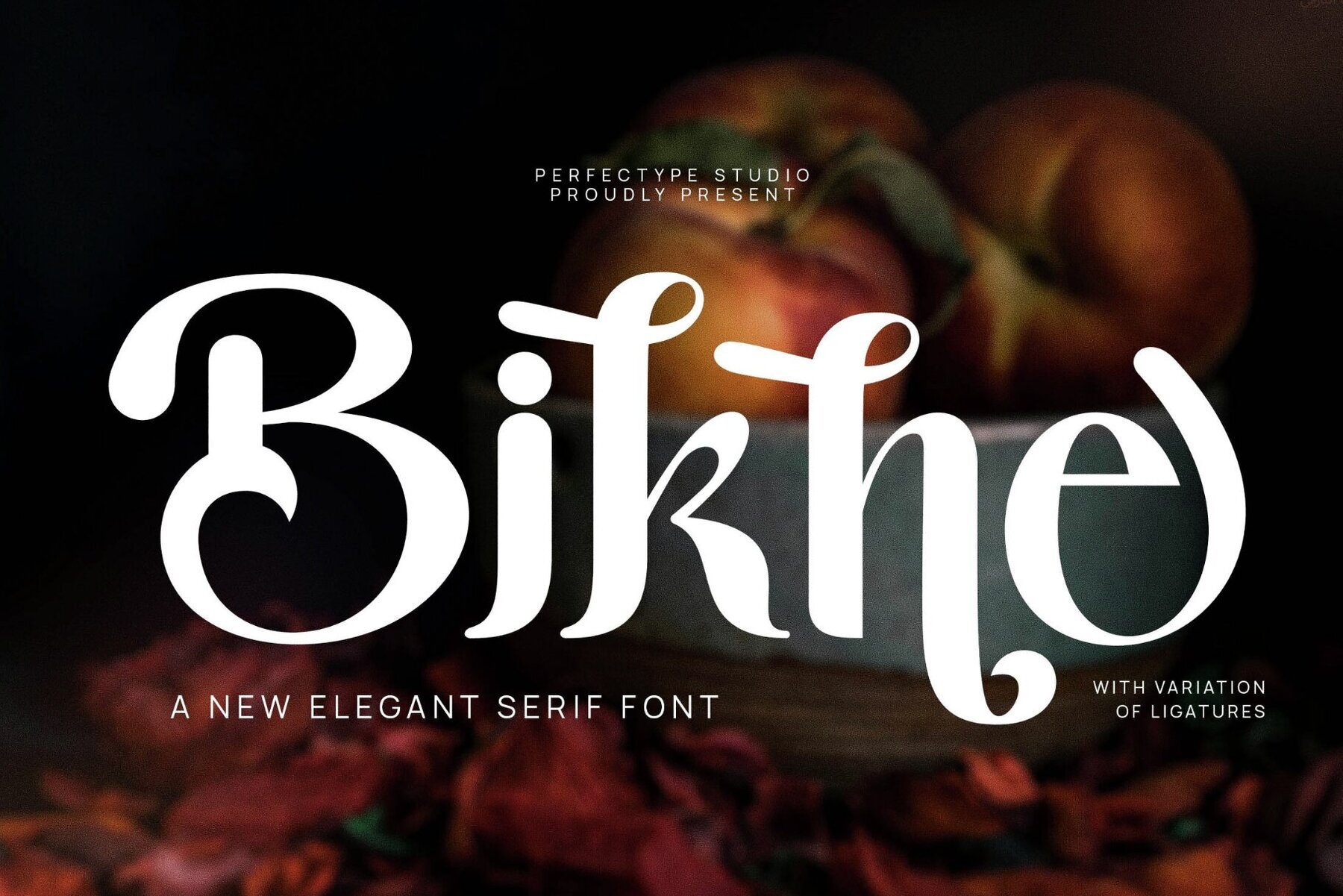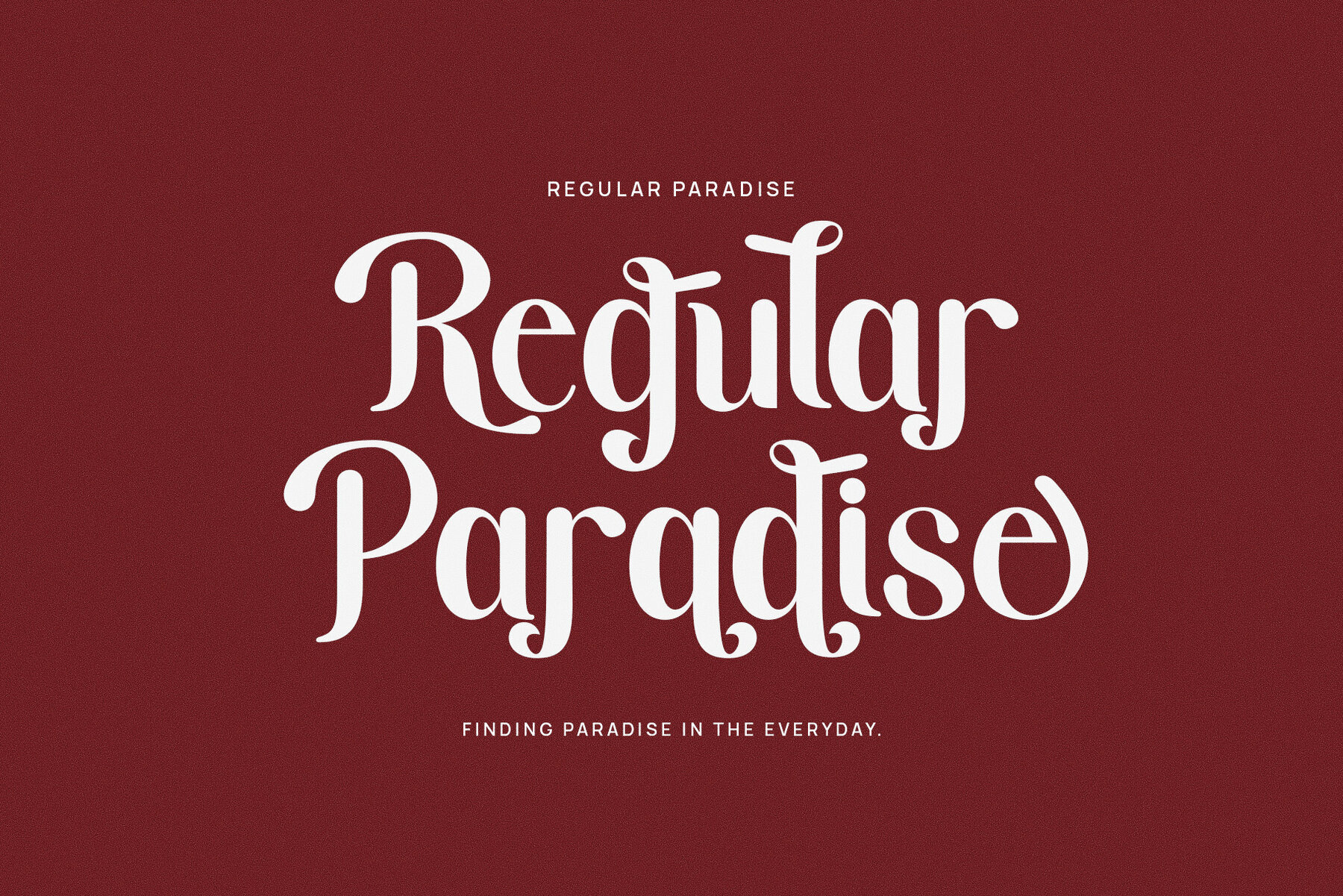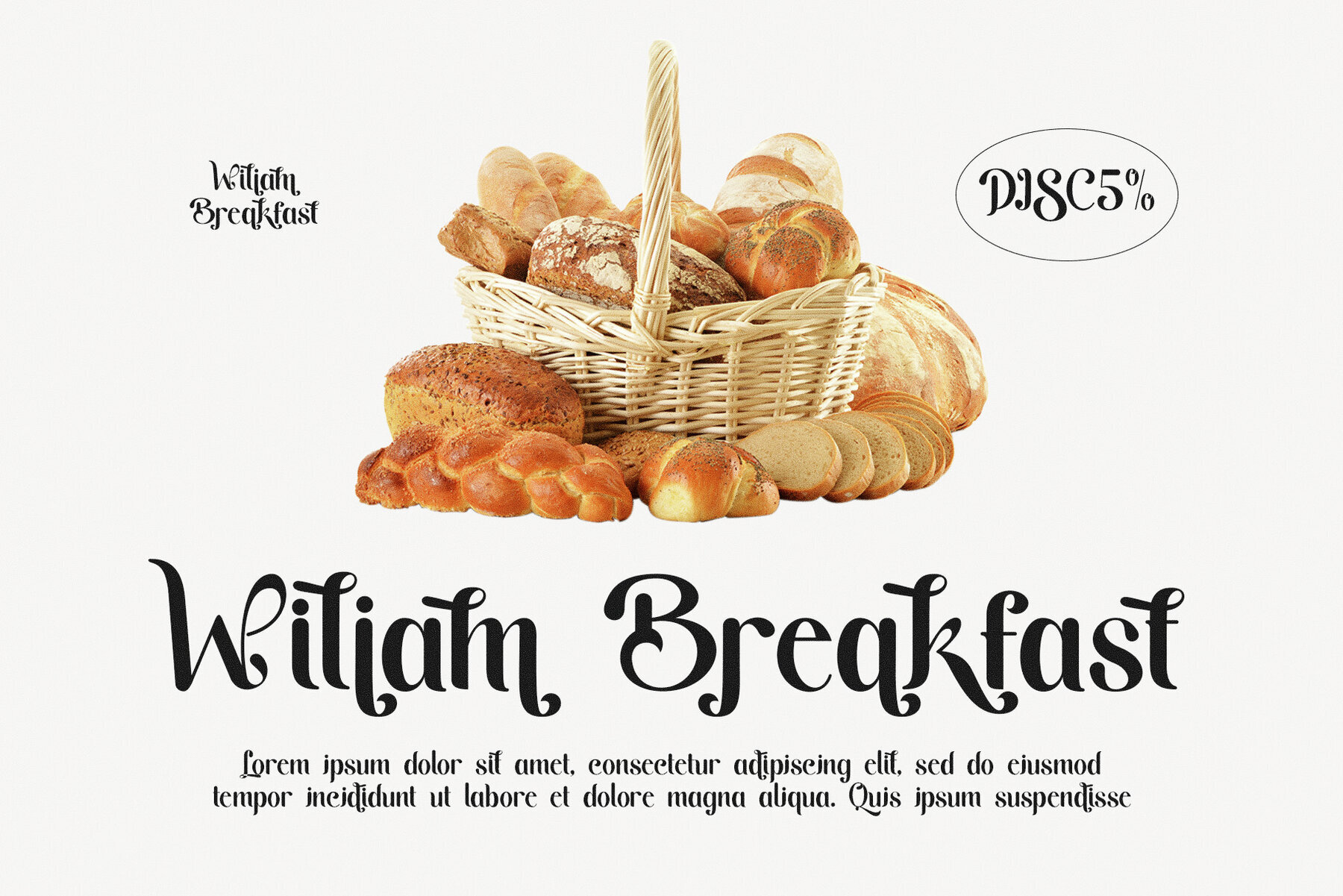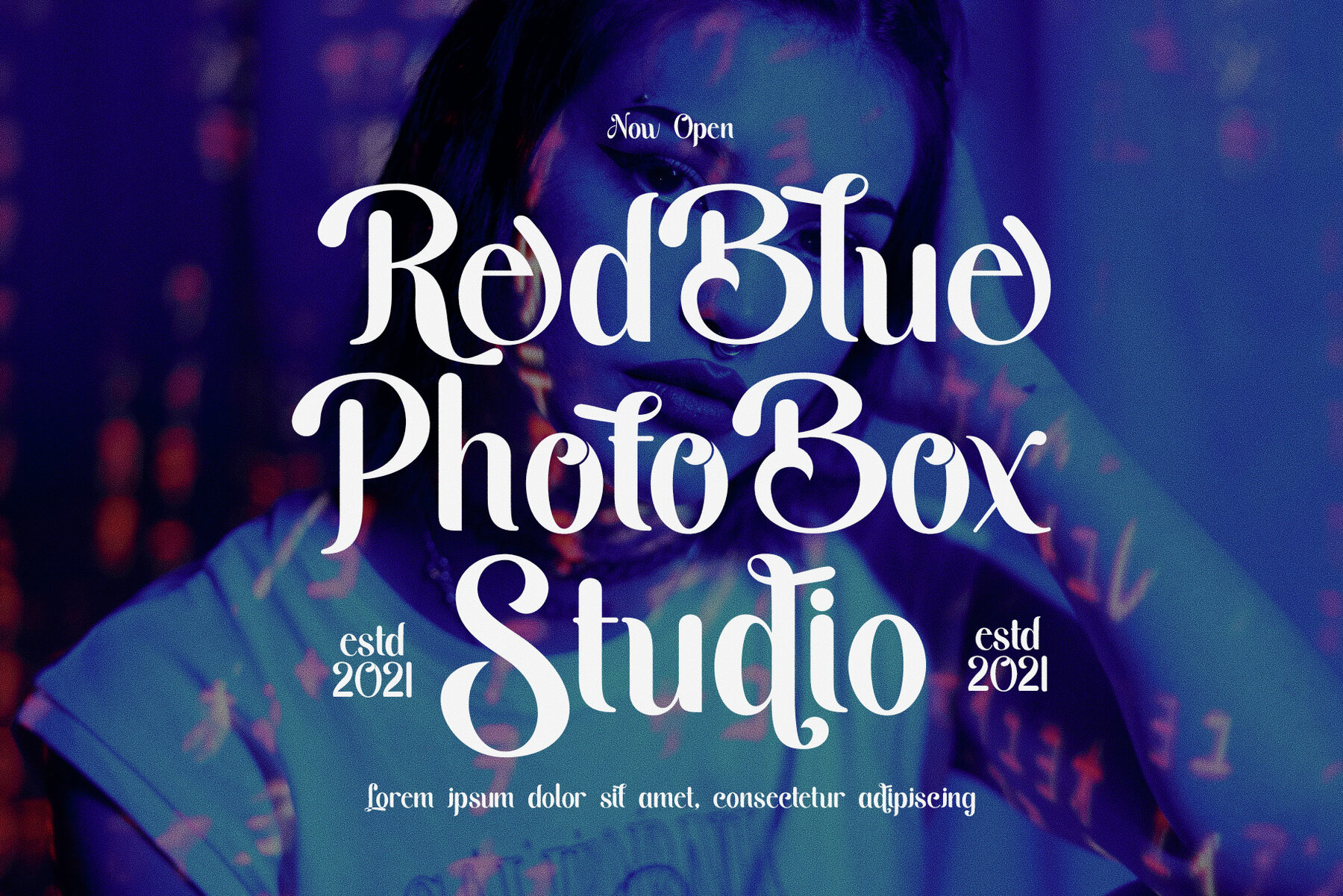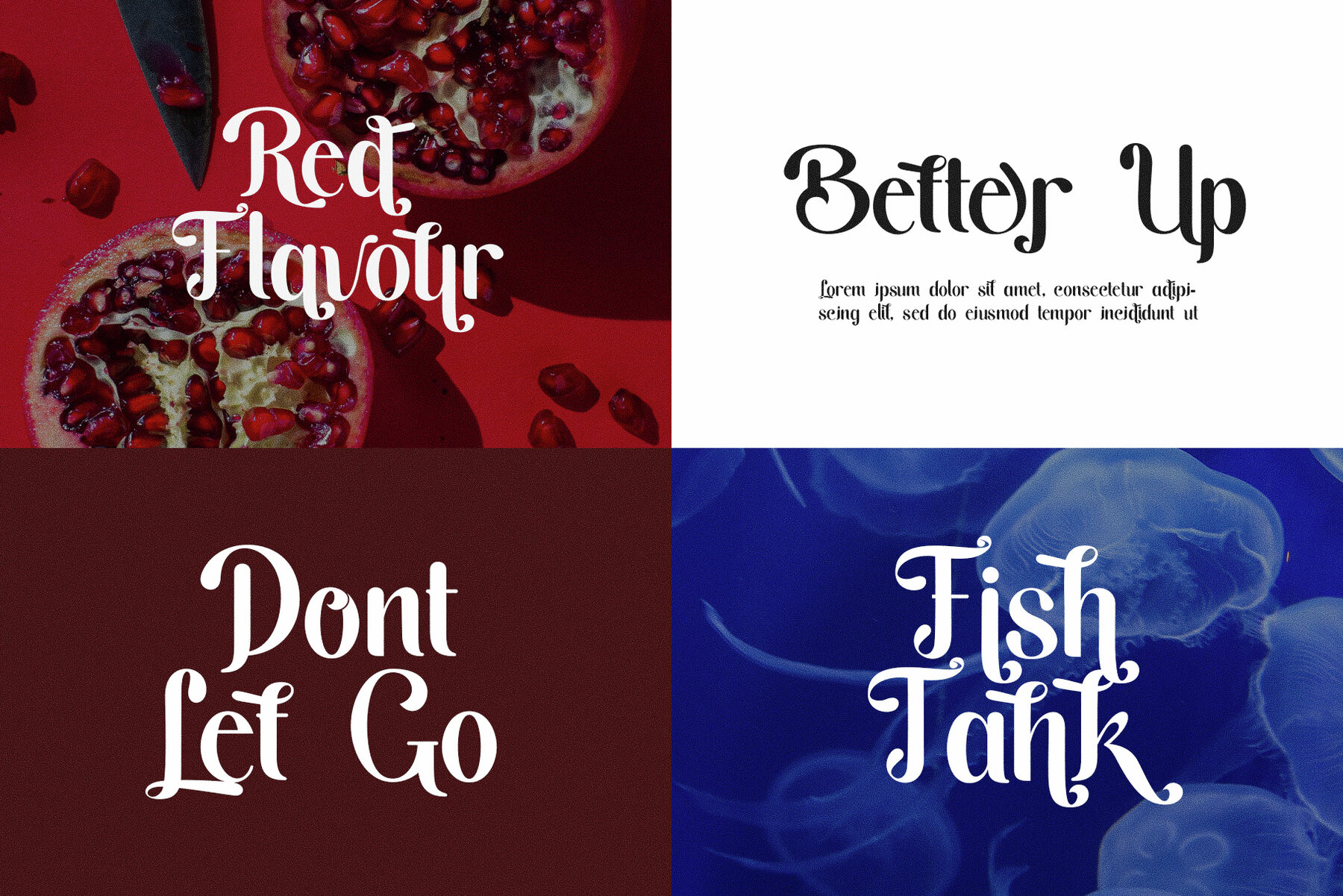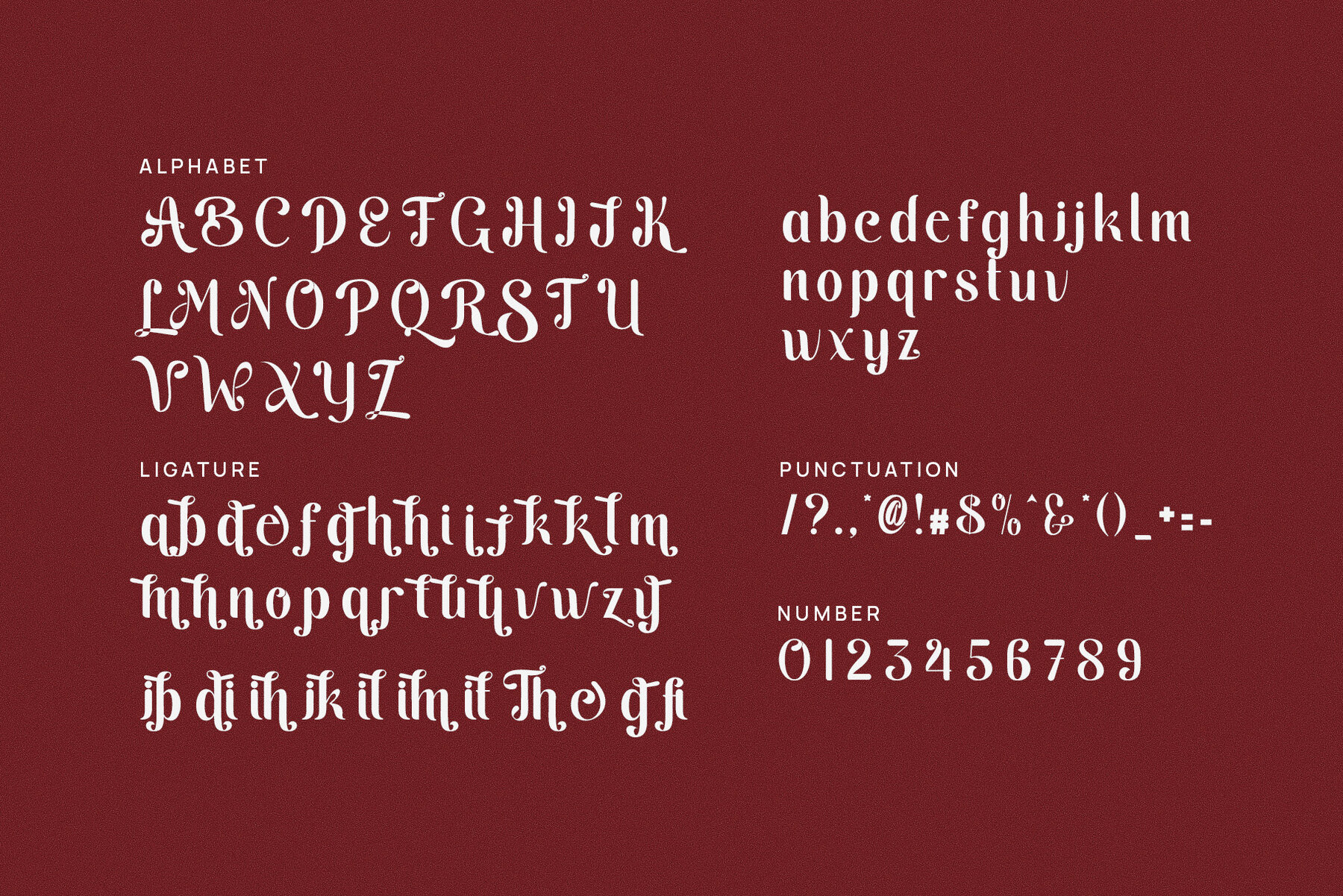
Bikne Font
Bikne
The Bikne Display Font from Perfectype Studio reimagines modern design by introducing distinctive and irregular shapes that demand attention. Perfect for those seeking a bold visual presence, its unconventional style injects fresh energy into logos, branding, and adverts. Asymmetrical elements give Bikne a dynamic, edgy appeal, making it a wise choice for innovative projects looking to convey a forward-thinking message. This font shines in display settings, where its bold structure ensures messages stand out. Ideal for websites, advertising, and product packaging, Bikne is suited for contemporary designs that captivate quickly. Its modern aesthetic offers unique opportunities in fashion, food branding, music promotions, and tech-related projects, setting your brand apart with distinction. While Bikne excels in large-scale displays, it retains legibility across mediums, making it versatile for print and digital platforms. Paired with minimalist elements, its bold shapes take center stage, infusing branding materials, posters, and adverts with originality. More than just a typeface, Bikne is an artistic statement, ready to bring unique visual energy to logos, magazines, and product packaging, ensuring your message is memorable and impactful.Bikne Display Font